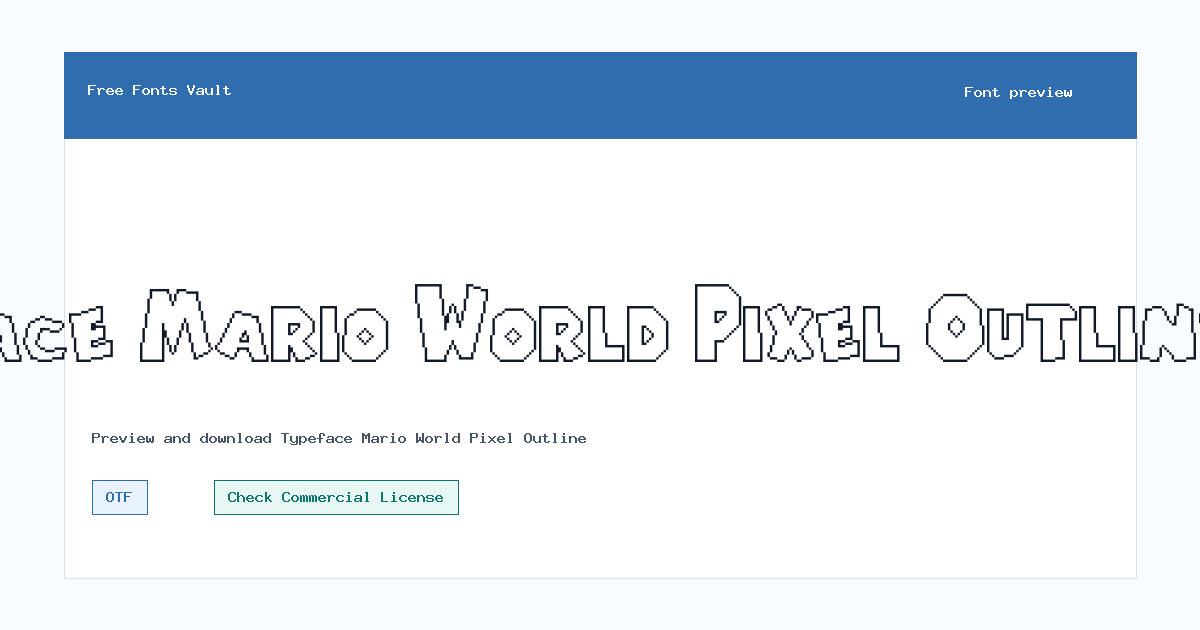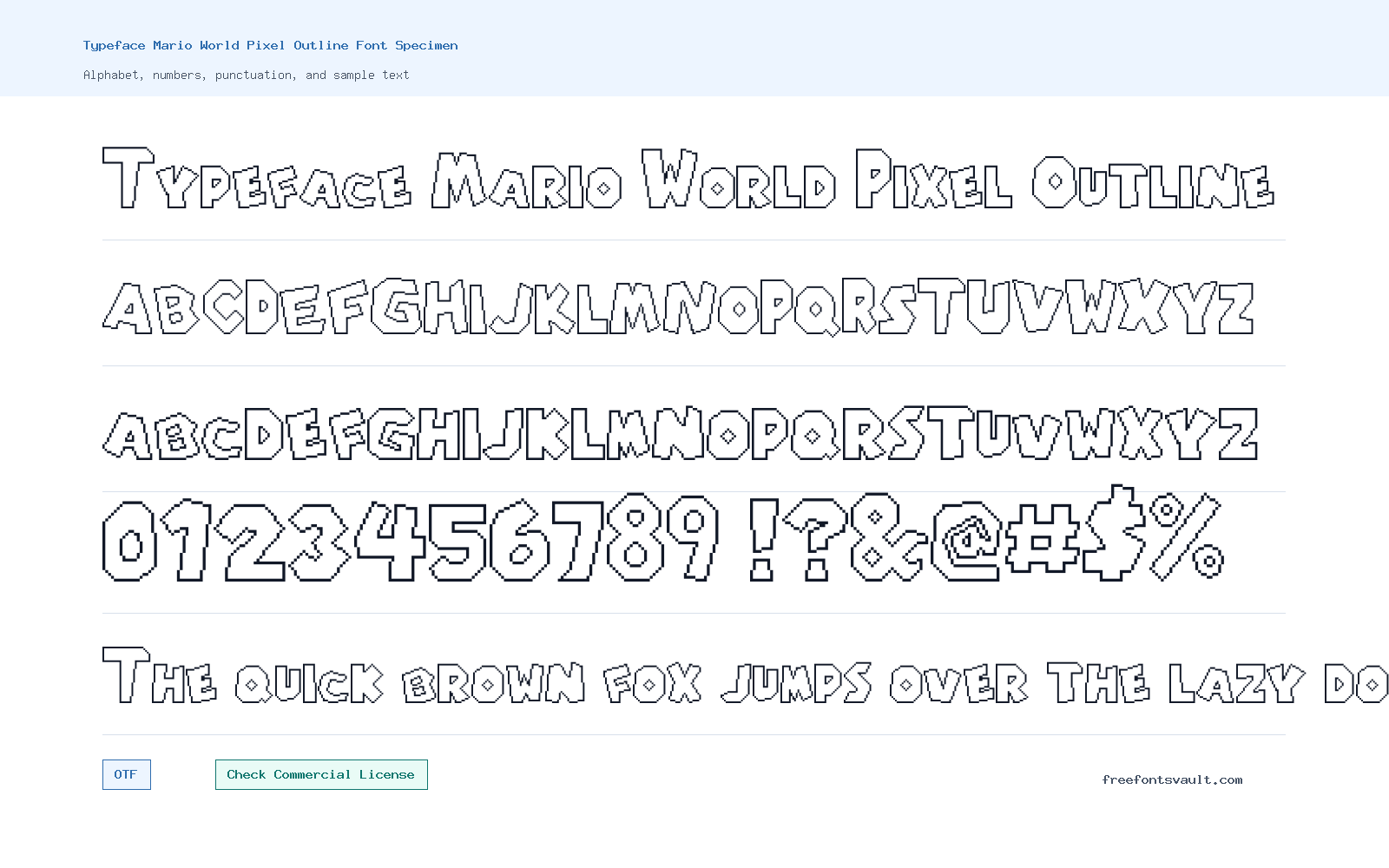
Typeface Mario World Pixel Outline
Typeface Mario World Pixel Outline is a blocky pixel-style outline font made for short, playful display text. Its squared letter shapes and hollow construction work best when the text is large enough for the pixel edges to stay clear.
About Typeface Mario World Pixel Outline
This font uses a regular OTF file with normal style and 400 weight. The look is built around a pixel outline effect, so it has a retro screen feel without needing extra decoration. Because the letters are outlined rather than solid, it is better for titles, labels, buttons, and preview graphics than for long paragraphs.
• Pixel-style outlined letterforms for large display settings
• Retro game-style headings, thumbnails, banners, and title cards
• Short labels, stickers, menu text, and decorative preview graphics
Typeface Mario World Pixel Outline is credited to ripoof on FontStruct.
Keep the font large, give it enough spacing, and avoid using it for body text. If the outline appears too thin at small sizes, use it only for a headline or pair it with a simple solid text font for readable supporting copy. Treat it as a nostalgic display accent rather than a full text system. A few large words can carry the playful pixel look, while menus, captions, and instructions should stay in a simpler companion face for readability and license clarity.
What kind of designs suit this font?
It suits short display text such as retro-style headings, game-inspired graphics, thumbnails, labels, and decorative titles.
Who designed Typeface Mario World Pixel Outline?
The font is credited to ripoof, with FontStruct listed as the foundry source.